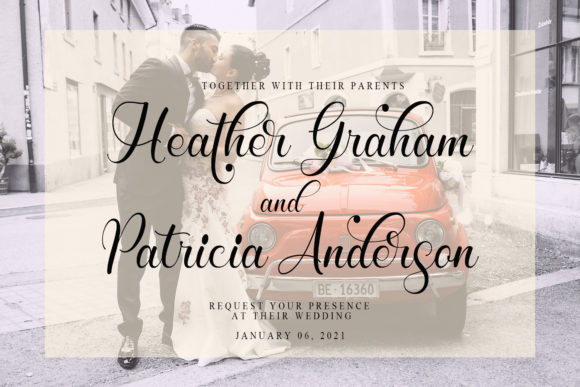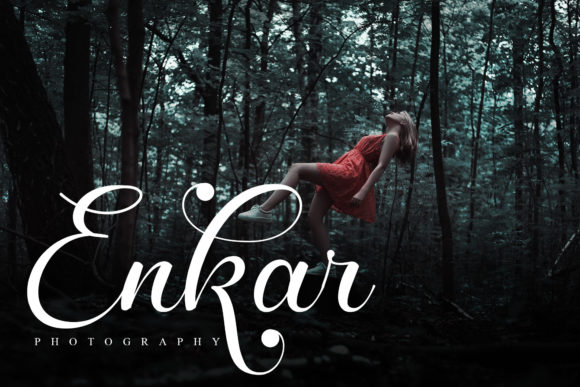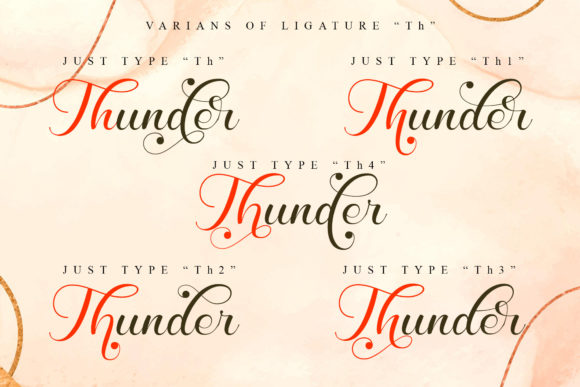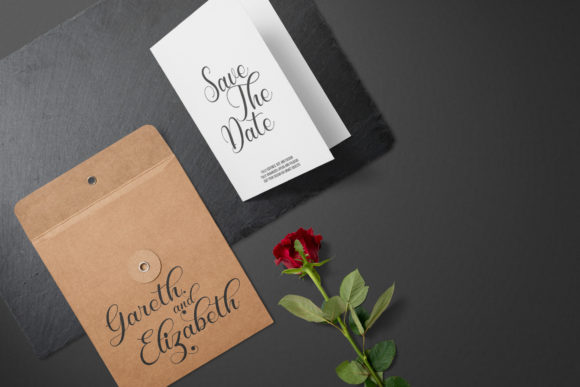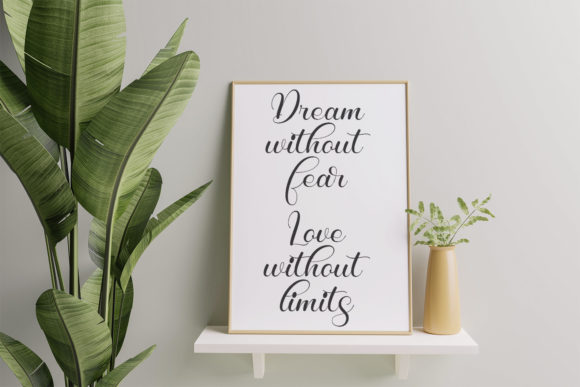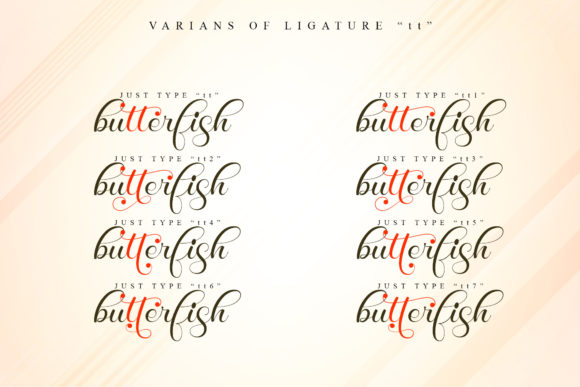
The Sweet Charm of Butterfish Font: A Designer’s Delight
I’ll never forget the time I was working on a wedding invitation project, and my client asked for a font that was “romantic, elegant, and playful.” I scoured the internet, tried out dozens of fonts, but nothing seemed to fit the bill. That was until I stumbled upon Butterfish Font. ✨ This beautiful calligraphy typeface has been a game-changer for my design projects, and I’m excited to share its charm with you.
An Honest Review of Butterfish Font
• ✨ Romantic and sweet calligraphy style that adds a touch of luxury to any design
• ✅ PUA encoded for easy access to glyphs and ligatures
• ⚡️ Characters that dance along the baseline, creating a sense of movement and elegance
• 🌈 Perfect for wedding invitations, branding, and packaging design
While Butterfish Font is a stunning typeface, there are a few things to keep in mind: 🤔
• ⚠️ Some characters may not work well in certain contexts, such as body text or small font sizes
• ⚠️ Limited availability of certain glyphs or ligatures in certain software or platforms
The Backstory of Butterfish Font
Butterfish Font was designed with love and care by a team of passionate typographers. The font’s creator was inspired by the beauty of handwritten calligraphy and the elegance of luxury branding. 💌 The result is a font that’s both romantic and sophisticated, perfect for designers who want to add a touch of luxury to their projects.